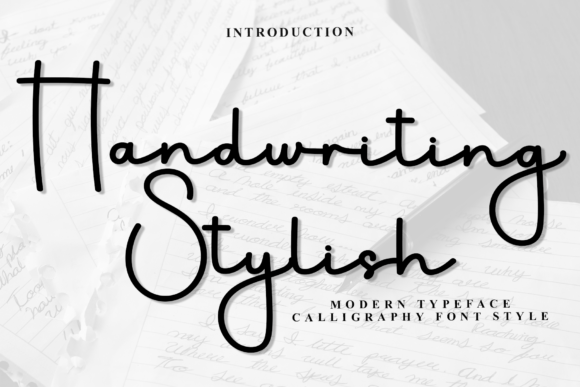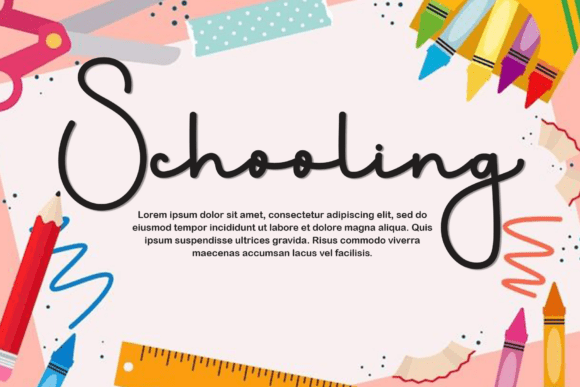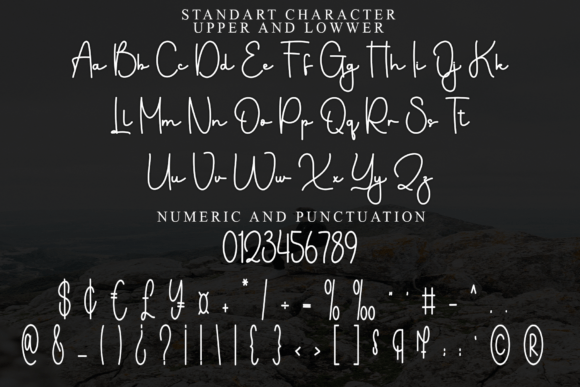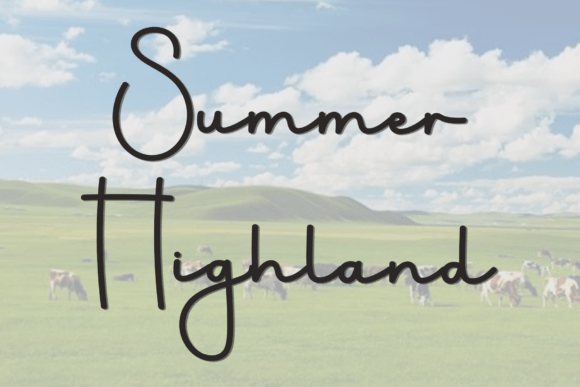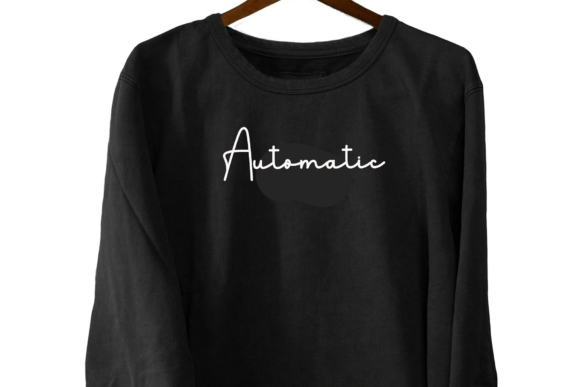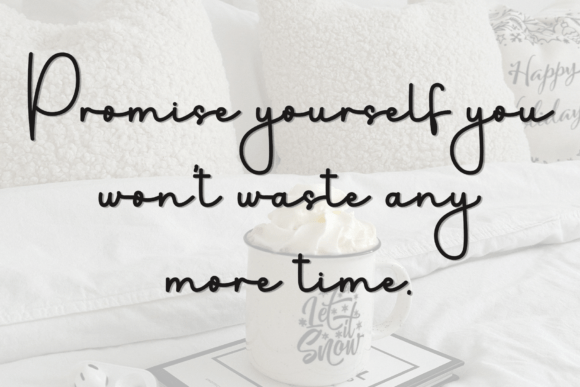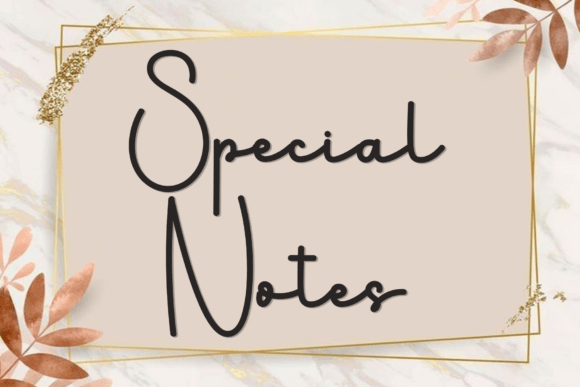
The Magic of Handwriting Stylish Font
Have you ever sat down with a blank page, a pen, and a spark of creativity, only to find yourself lost in the beauty of your own handwriting? For many of us, there’s something special about the way our handwriting can convey emotion, personality, and style. That’s exactly what the Handwriting Stylish Font aims to capture – the essence of handwritten charm in a digital format.
This beautiful and eye-catching font is designed to add a touch of uniqueness to your designs, crafts, and creative projects. With its soft, distinctive strokes, it’s perfect for making a lasting impression on your audience. Whether you’re a graphic designer, artist, or crafty enthusiast, the Handwriting Stylish Font is a valuable addition to your toolkit, offering endless possibilities for creative expression.
Key Features of Handwriting Stylish Font
- Font Size: 300-400 glyphs, allowing for a wide range of characters and symbols
- Unique Characteristics: Handwritten style with flair, cursive connections, and subtle imperfections for a natural look
- Font Weight: Light, Regular, and Bold weights available for versatile use in various designs
Handwriting Stylish Font Review
I’ve had the chance to play around with the Handwriting Stylish Font, and here’s my honest take.
This font is great for adding a personal touch to your designs. It’s perfect for creating invitations, social media posts, or any other project that needs a handwritten feel.
- Customizable: The font comes with various styles and sizes, giving you plenty of options to experiment with.
- Creative possibilities: The Handwriting Stylish Font is ideal for creating unique and eye-catching designs.
While this font is great for many projects, it may not be the best choice for formal or professional designs.
- Not suitable for body text: The font is best used for headings, titles, or other decorative elements.
- Limited readability: The handwritten style can make the text difficult to read, especially for longer blocks of text.
Overall, I think the Handwriting Stylish Font is a great addition to any designer’s toolkit. While it may have some limitations, its unique style and ease of use make it a valuable resource for creatives.
Handwriting Stylish Font: A Practical Application Guide
Tips for Getting the Most Out of the Handwriting Stylish Font
Experiment with different font sizes and styles to create unique and visually appealing text effects.
Use the Handwriting Stylish Font to add a personal touch to invitations, greeting cards, and other special occasion designs.
Combine the Handwriting Stylish Font with other creative elements, such as illustrations and graphics, to create eye-catching and memorable designs.
Birth announcements and baby shower invitations
Personalized gift tags and cards
Quirky social media graphics and captions